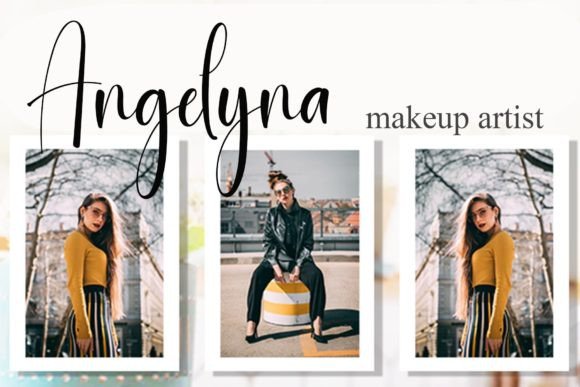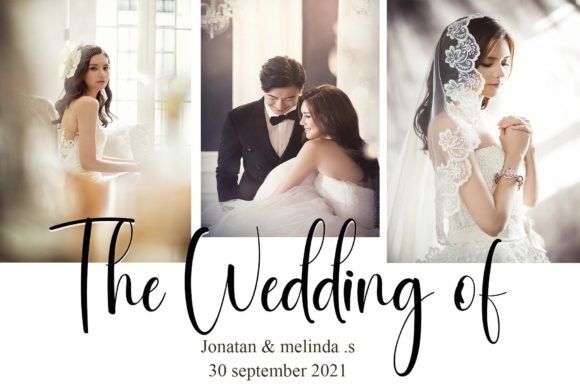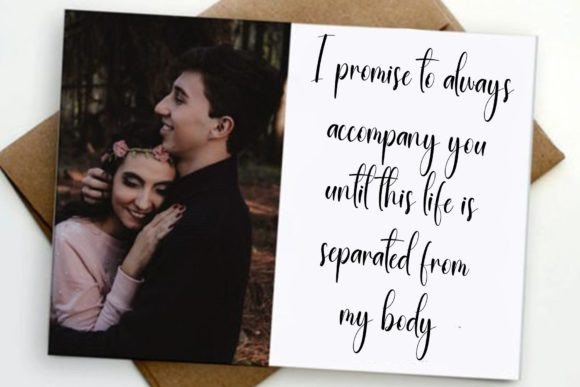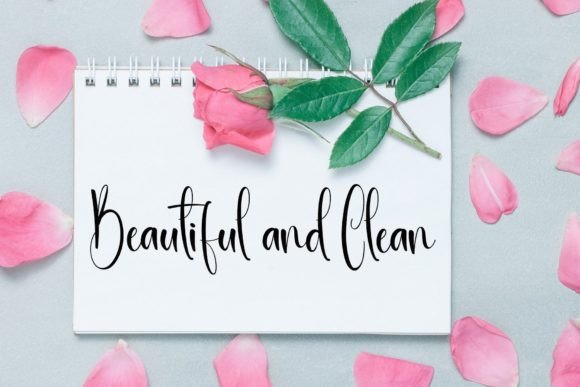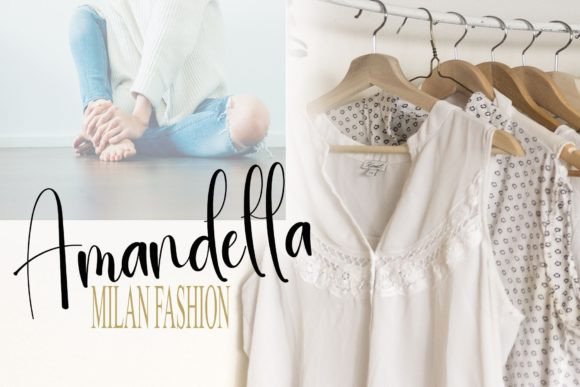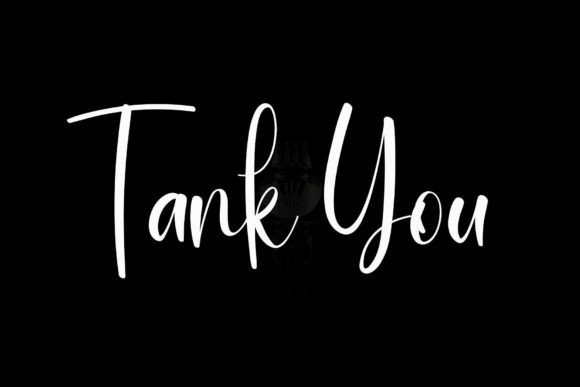
Introducing Blankets Font: Elegance Meets Modernity
In the world of typography, fonts play a crucial role in conveying messages, expressing emotions, and adding aesthetic value to designs. For designers, crafters, and anyone looking to add a touch of elegance to their projects, the Blankets Font is a remarkable choice. This elegant handwriting font is not just any ordinary typeface; it’s a beautifully crafted script that blends classic decorative elements with a modern touch.
The Charm of Blankets Font
Blankets Font stands out with its very beautiful character change, offering a kind of classic decorative script that has been reimagined for contemporary use. Designed with high detail, this font presents an elegant style that can elevate any design project. Whether you’re working on a branding project, crafting a unique invitation, or simply looking to add some sophistication to your digital content, Blankets Font is versatile enough to meet your needs.
Key Features of Blankets Font
- Elegant Handwriting Style: Blankets Font boasts a fluid, handwriting-like quality that adds a personal touch to any text.
- Classic yet Modern: It successfully merges traditional decorative script elements with a modern aesthetic, making it suitable for a wide range of design applications.
- High Detail: The font’s high level of detail ensures that it remains legible and visually appealing, even at smaller sizes.
- Character Variation: With a beautiful character change, Blankets Font offers designers the opportunity to create dynamic and interesting text arrangements.
Who Can Benefit from Blankets Font?
Blankets Font is an excellent choice for a variety of users, including:
- Graphic Designers: Looking for a sophisticated font to use in branding, packaging, or promotional materials.
- Crafters: Creating handmade products, such as wedding invitations, greeting cards, or personalized gifts, and seeking a unique and elegant font.
- Digital Content Creators: Aiming to add an elegant touch to their blog posts, social media content, or website.
- Stationery and Paper Crafting Enthusiasts: Needing a beautiful script font for their projects.
Using Blankets Font in Your Projects
Incorporating Blankets Font into your designs is straightforward. Here are a few tips to make the most of this elegant font:
- Pair with Complementary Fonts: Combine Blankets Font with simpler fonts for body text to create visual contrast and hierarchy.
- Experiment with Sizes and Colors: Play around with different sizes and colors to highlight certain words or phrases and add depth to your design.
- Utilize Character Variations: Take advantage of the font’s character change feature to add uniqueness and interest to your text.
Blankets Font is a stunning addition to any designer’s or crafter’s toolkit. Its elegant handwriting style, combined with classic decorative elements and a modern touch, makes it a versatile and sophisticated choice. Whether you’re looking to add a touch of elegance to your digital content, create beautiful stationery, or enhance your branding projects, Blankets Font is sure to impress. With its high detail and beautiful character variations, this font is poised to become a favorite among those seeking to add a bit of luxury and refinement to their work.